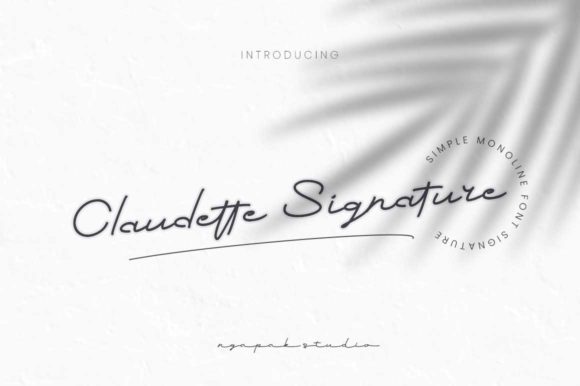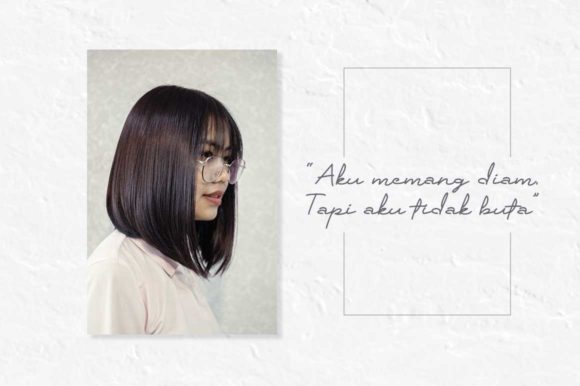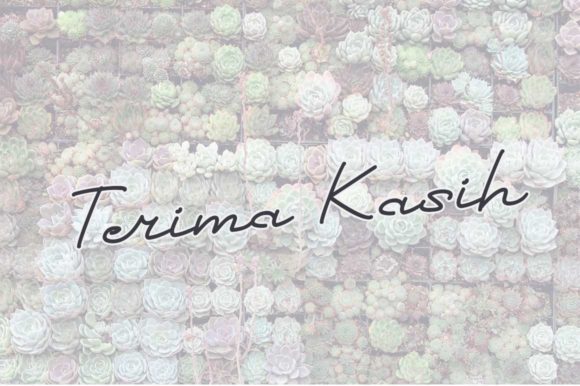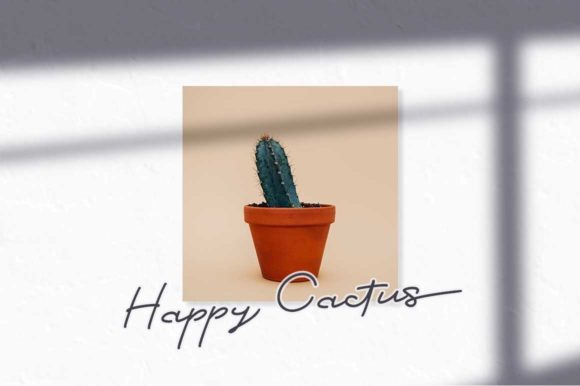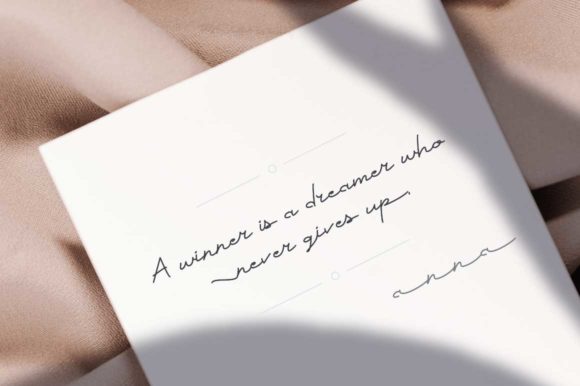
About Claudette Signature Font
Claudette Signature is a unique and elegant handwritten font. It looks beautiful on a variety of designs requiring a personalized style, such as wedding invitations, thank you cards, weddings, greeting cards, logos and so on.